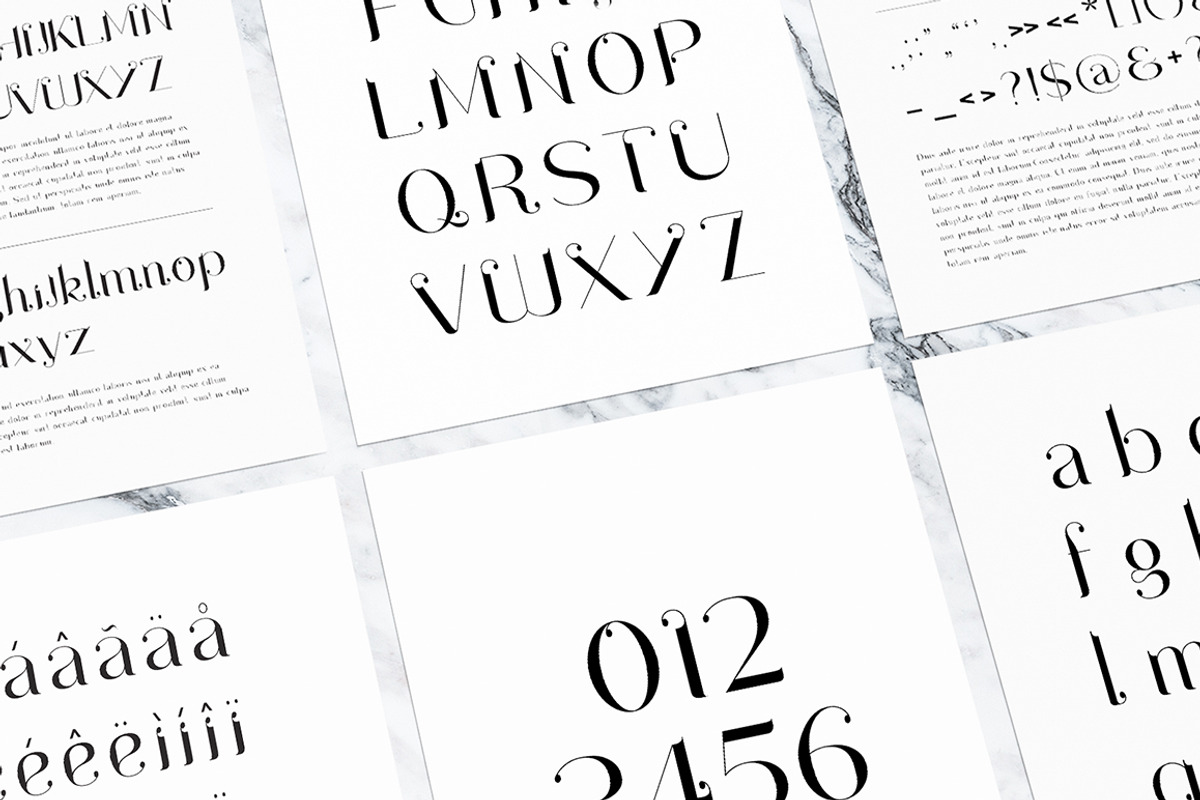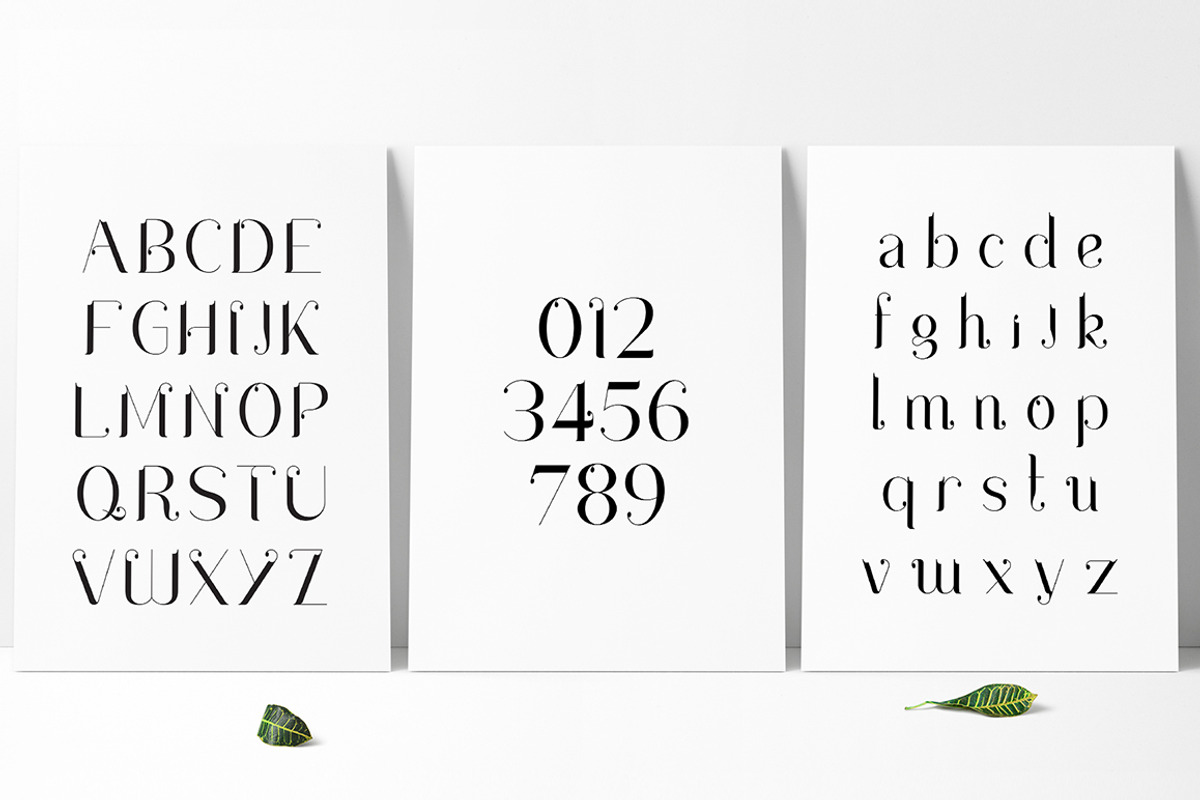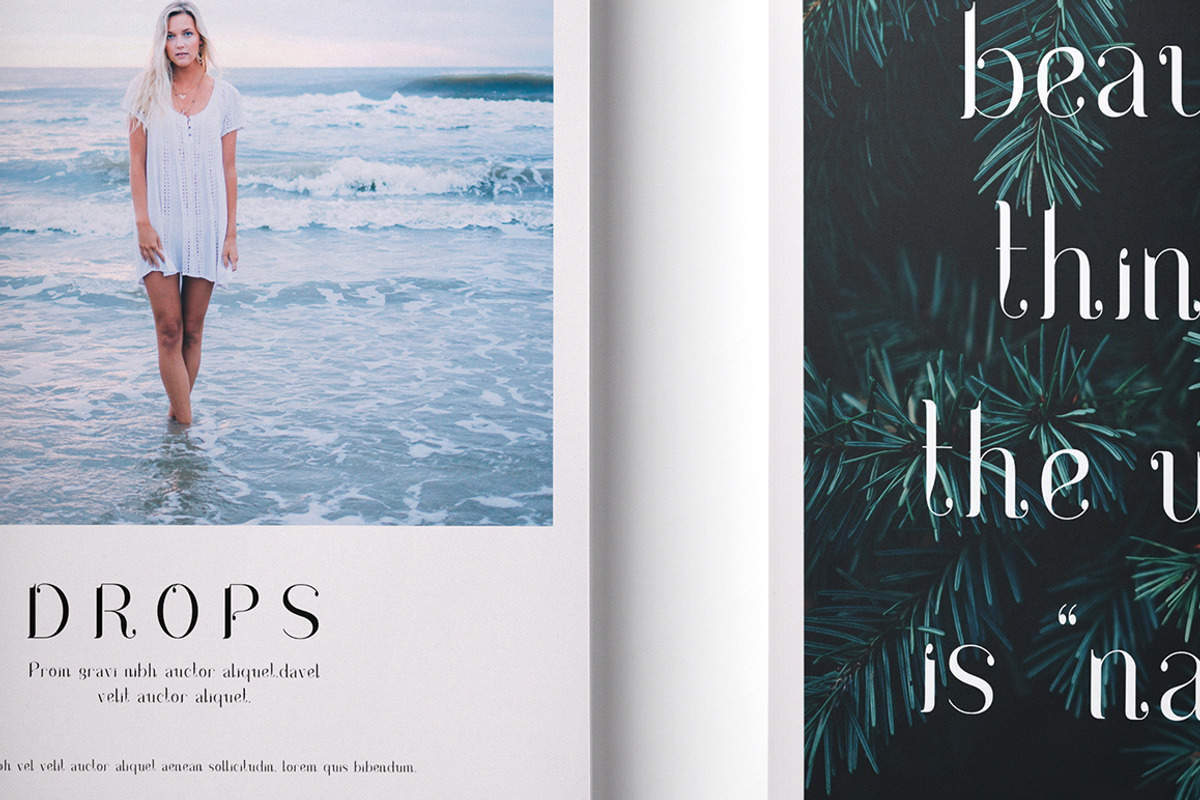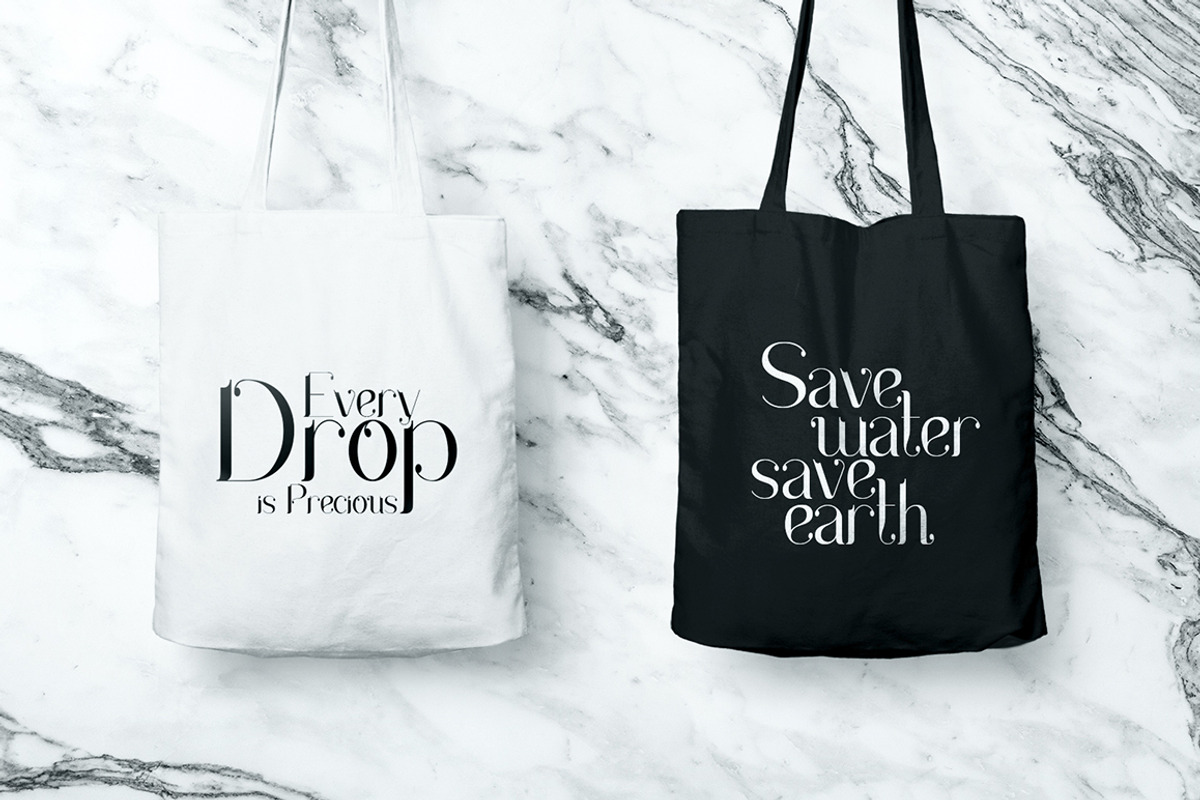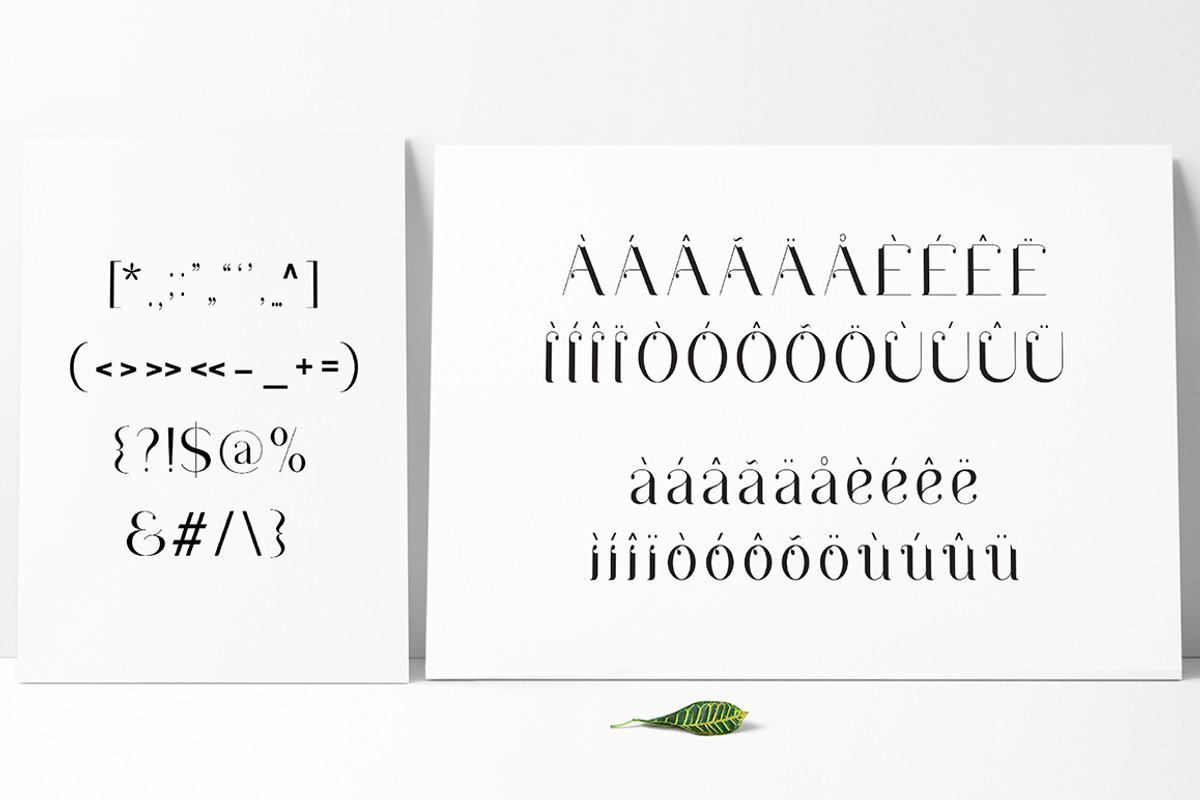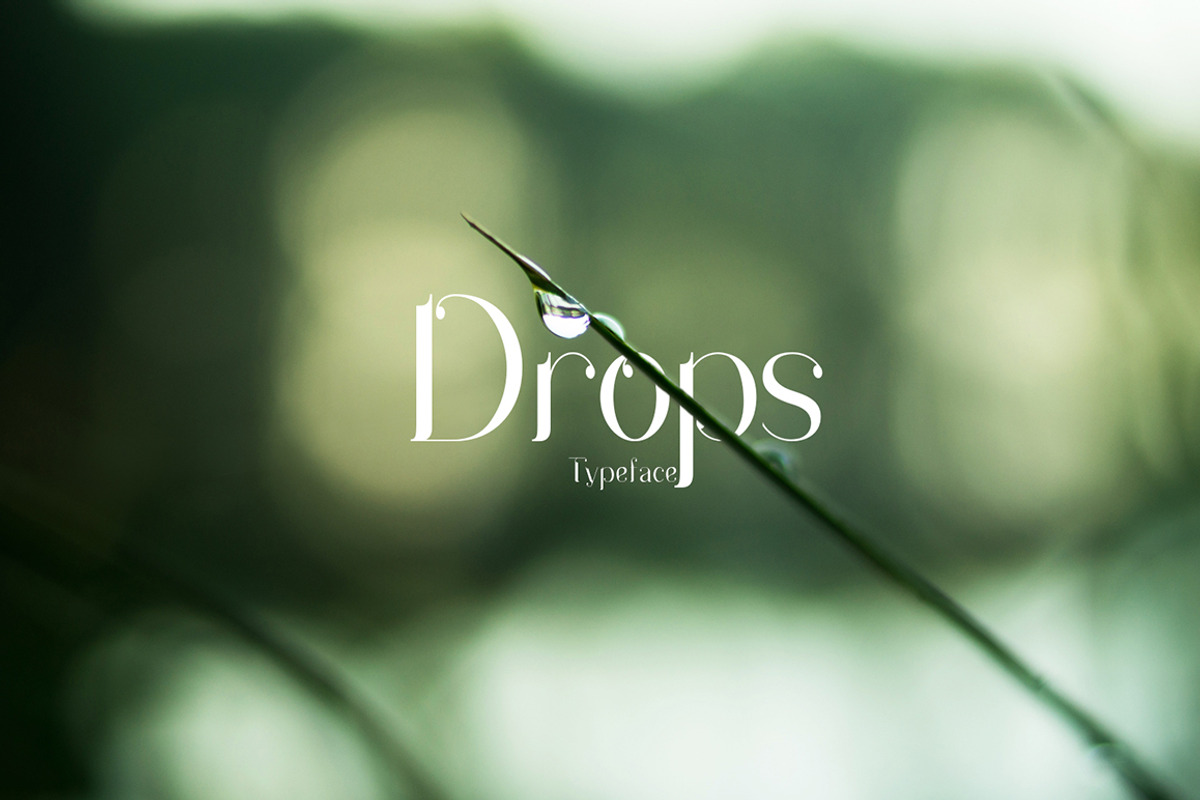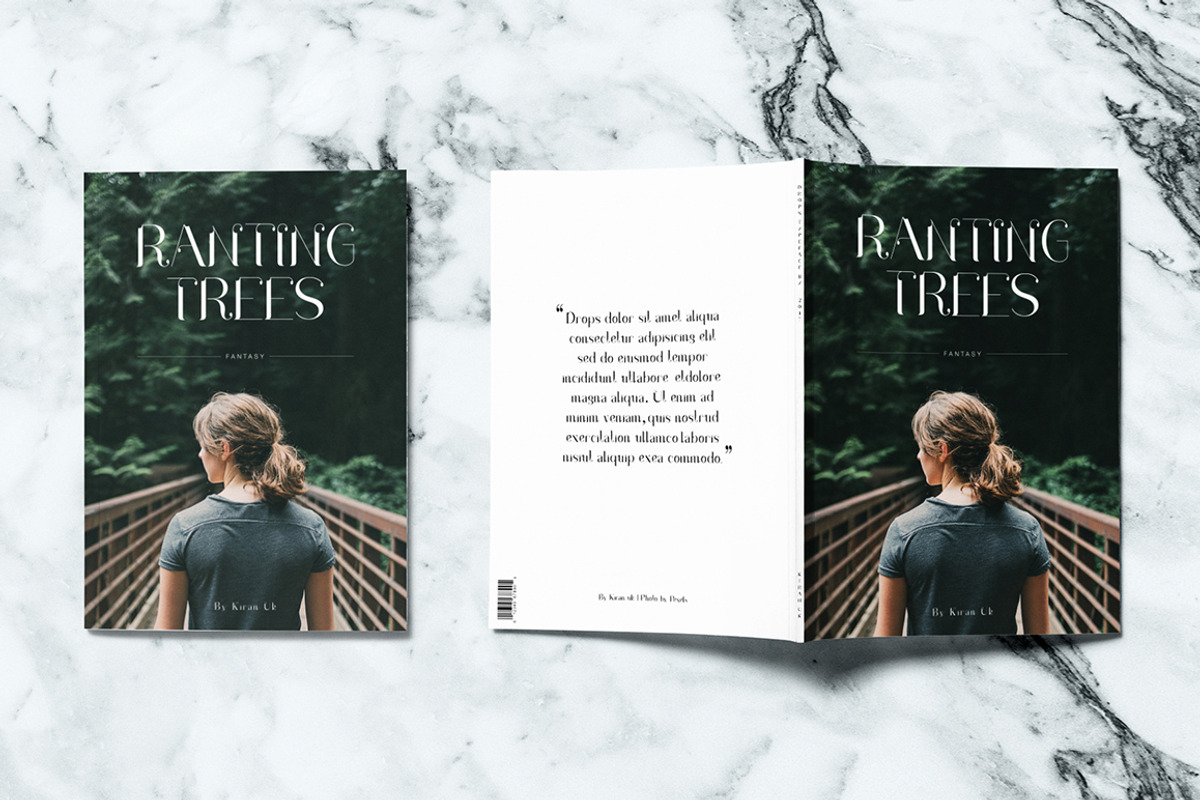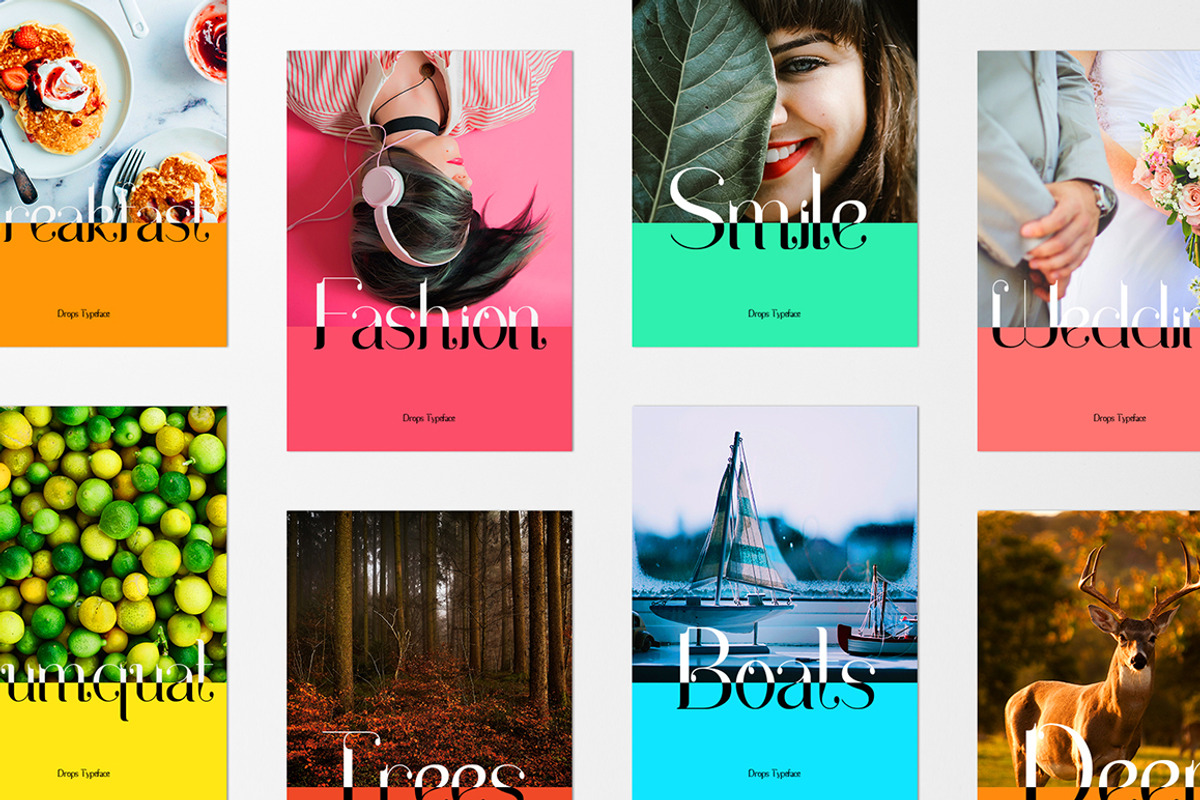
Drops Typeface
I am from a land famed for its torrential downpours. Rain is a part of our culture, well something can't be ignored if it pours down for straight six months a year. After every heavy deluge, the magic remains in the form of drops from leaves, window sills, and my mind! Global warming paid its heavy role in reducing our magical rains, as a boy/man who believes that there is no love without rain it took a heavy toll. But I pray that all remains the same and My font will be here as a tribute to those magical moments it created and in the music it made while it kissed the earth.
Drops typeface is suited for many applications like Magazines, Editorial, Posters, Weddings, Websites, Books, Branding & Identity, Photography, Fashion etc.
Drops Typeface by kiranuk fits naturally into Branding, posters, packaging, typography.